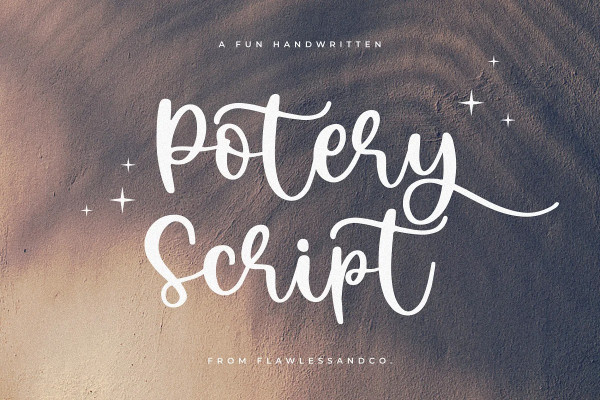
Potery Script Font
Potery Script Font is a handcrafted script, this style gives a feel of Girly, modern, Suitable for any graphic designs such as branding materials, t-shirt, print, business cards, logo, poster, t-shirt, photography, quotes .etc